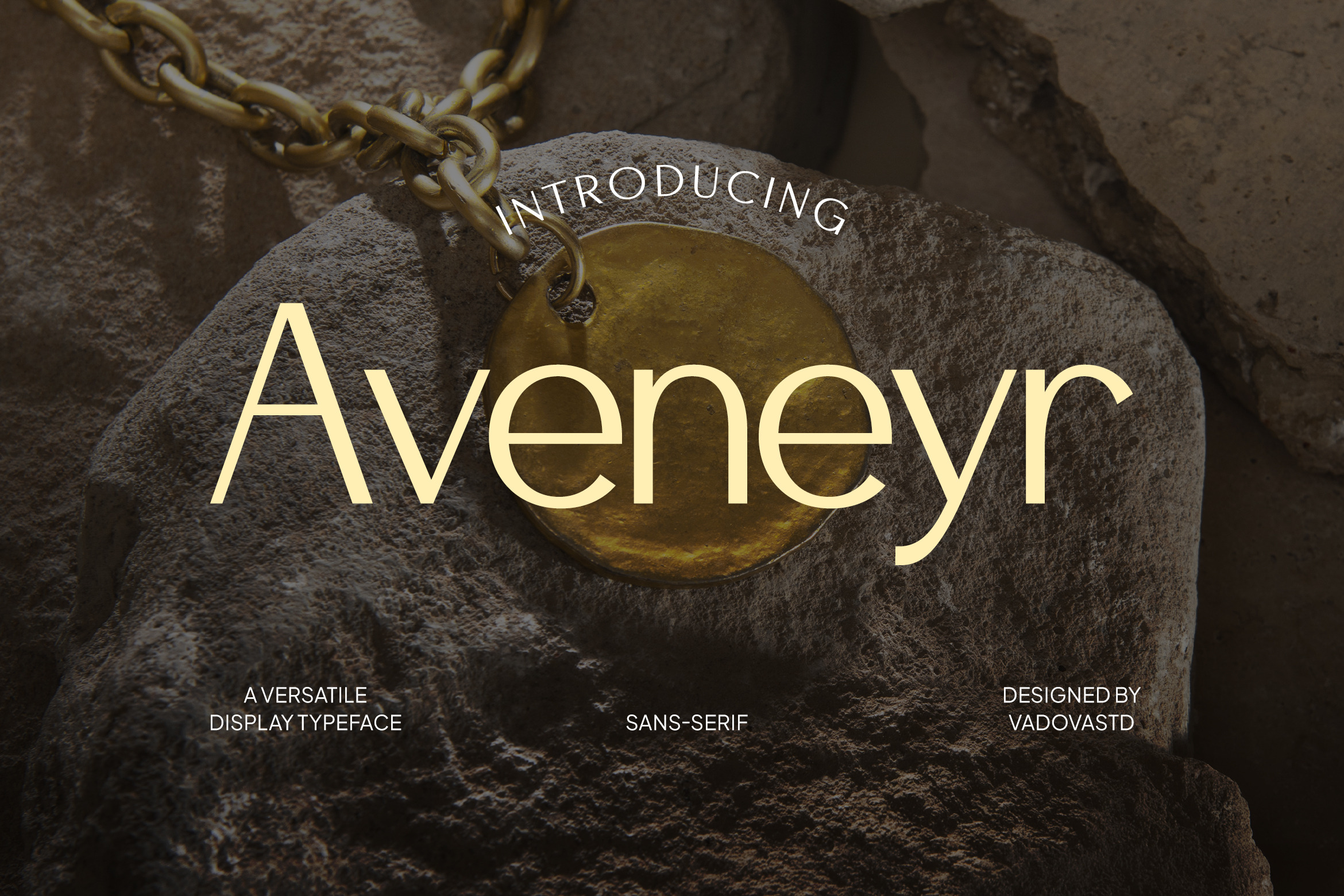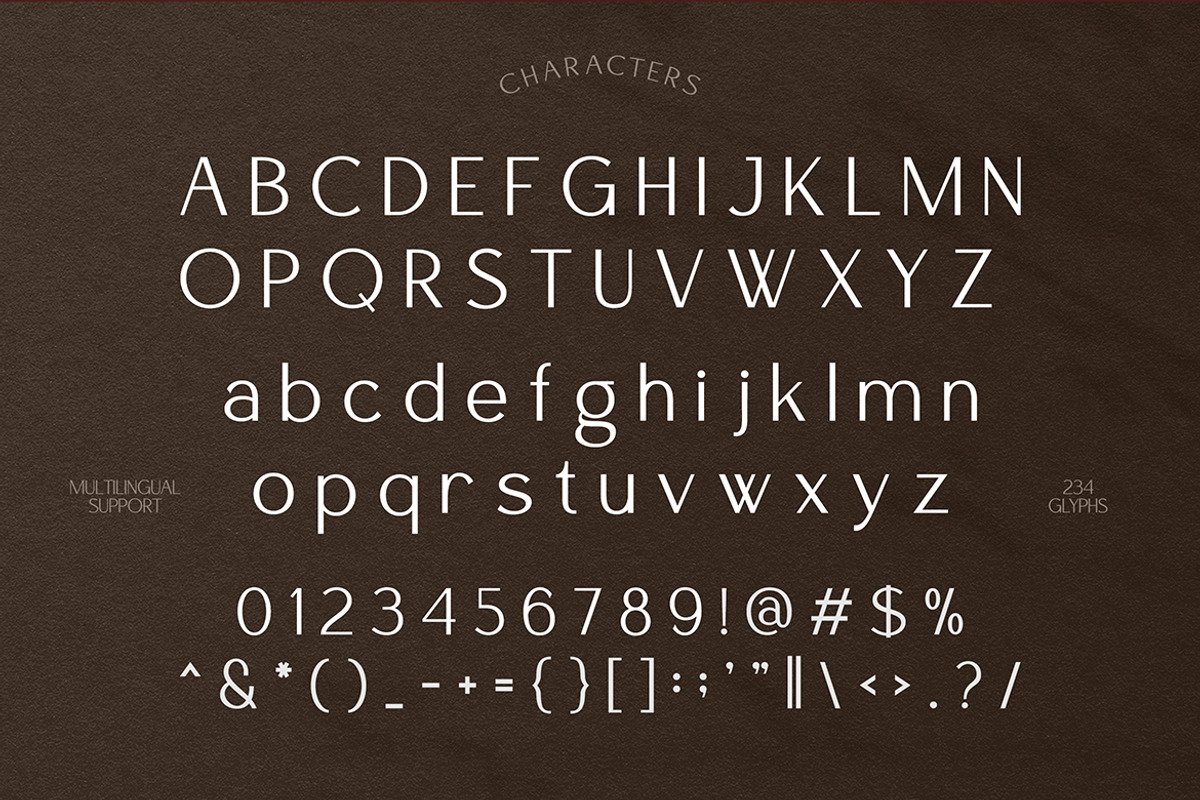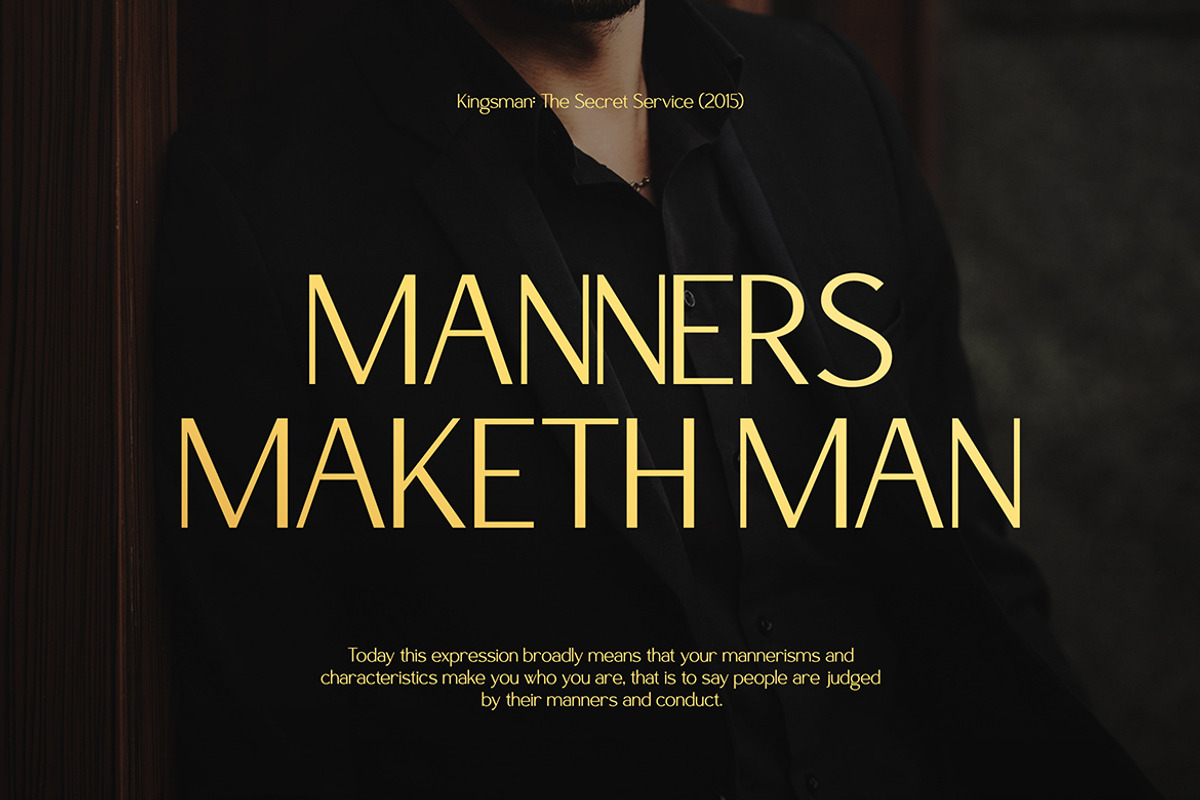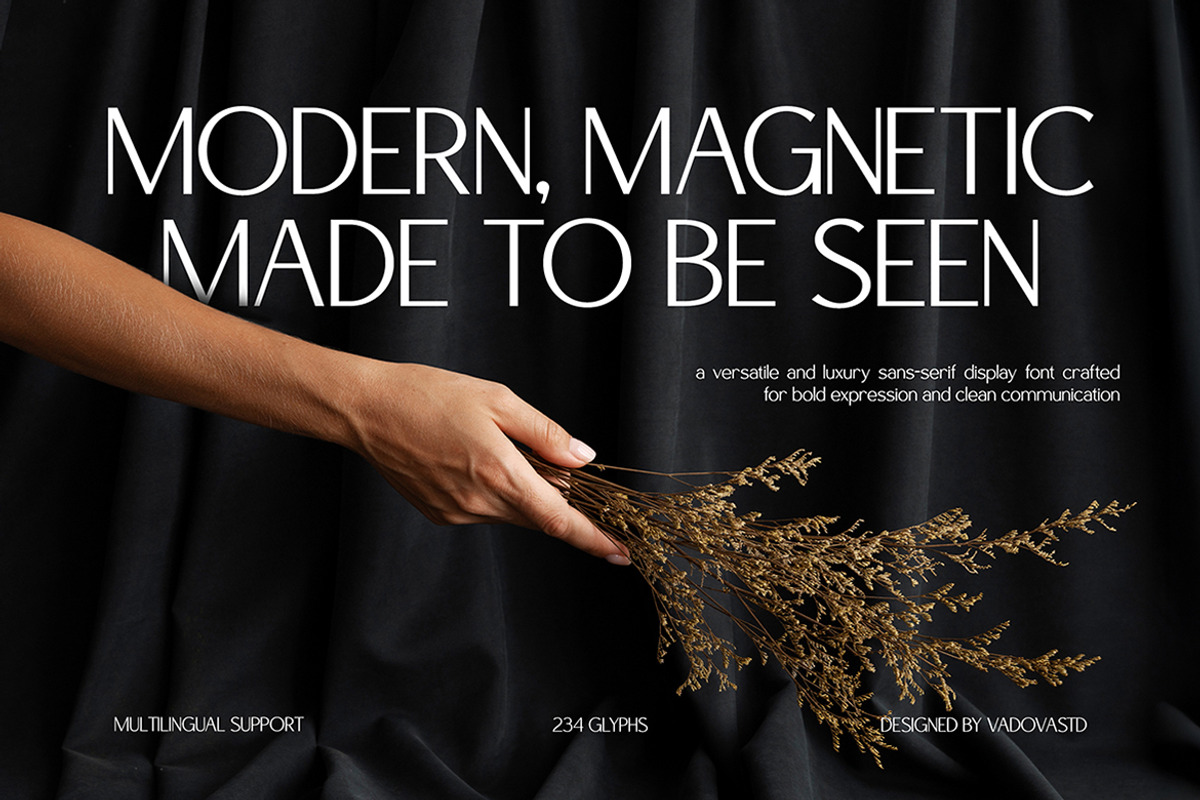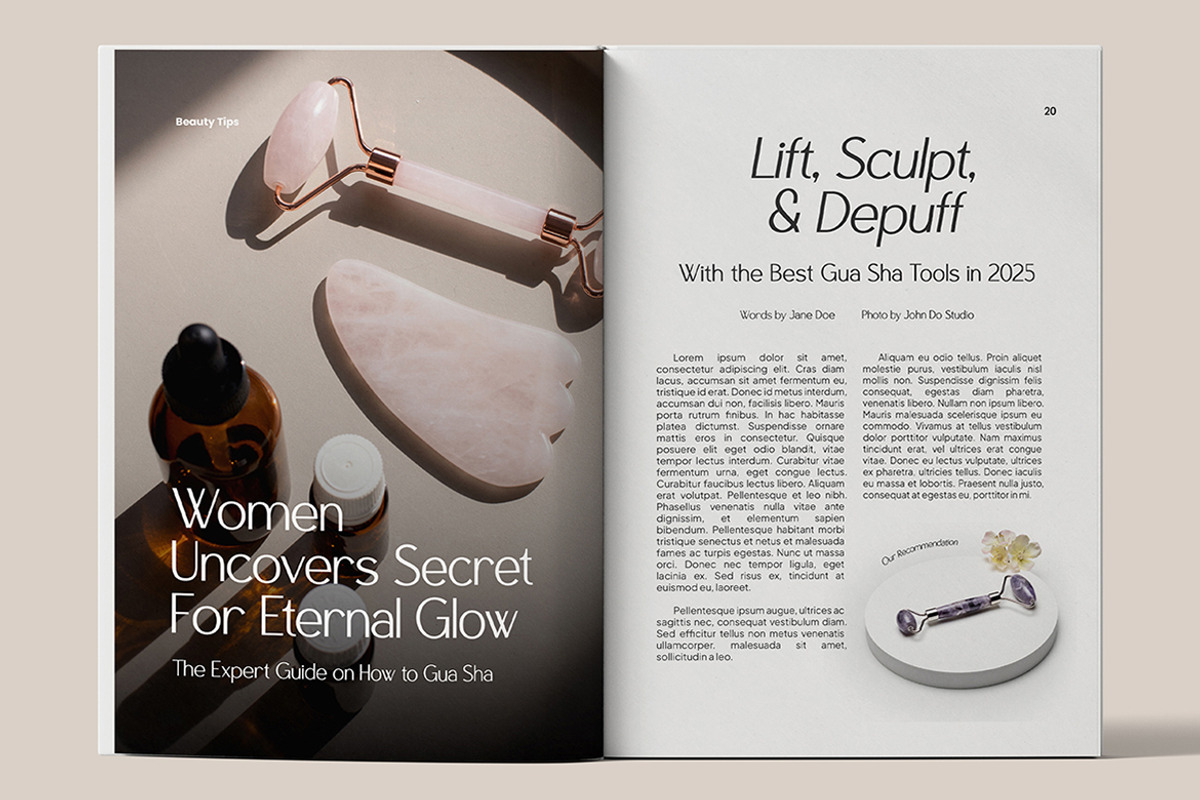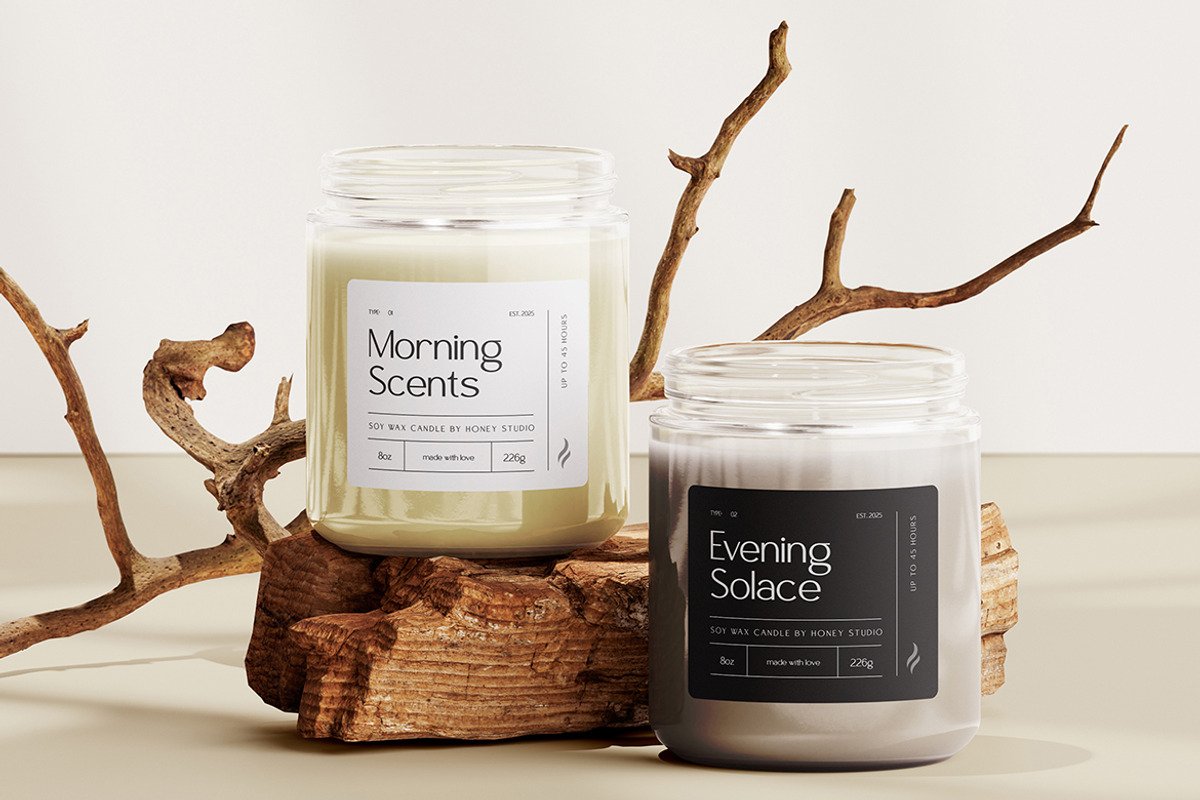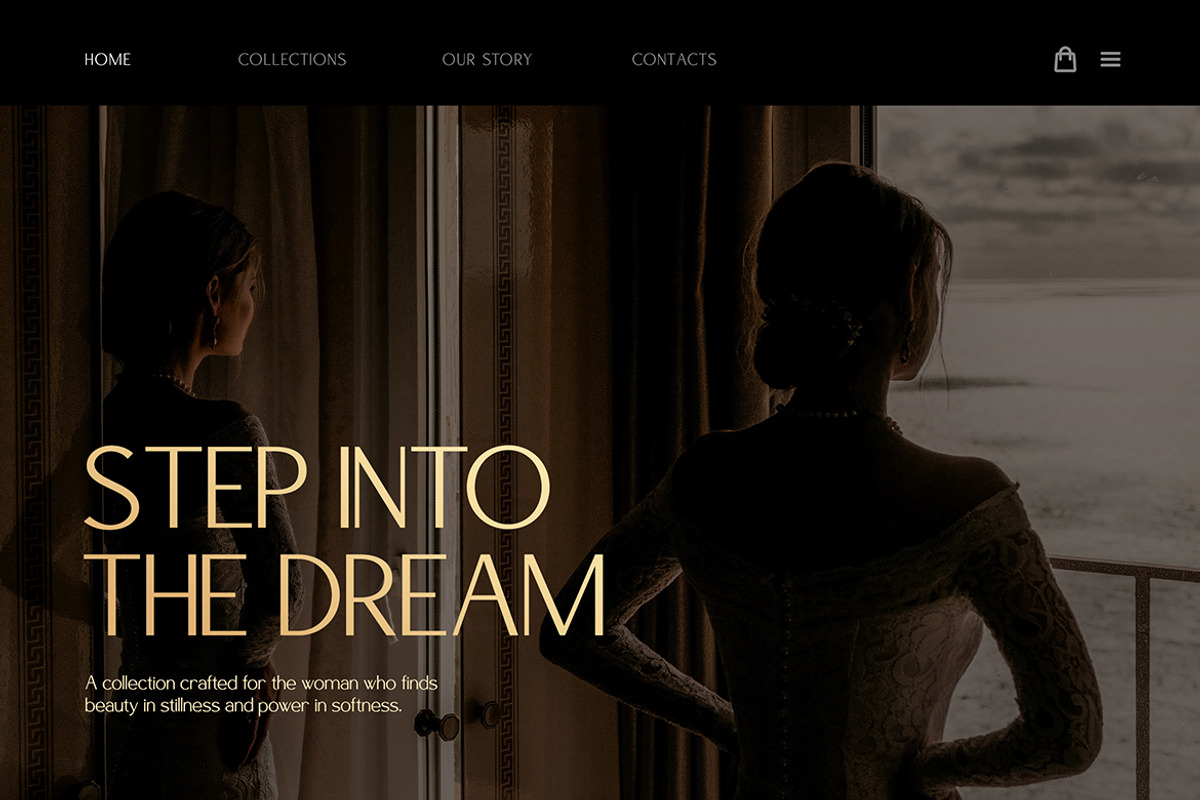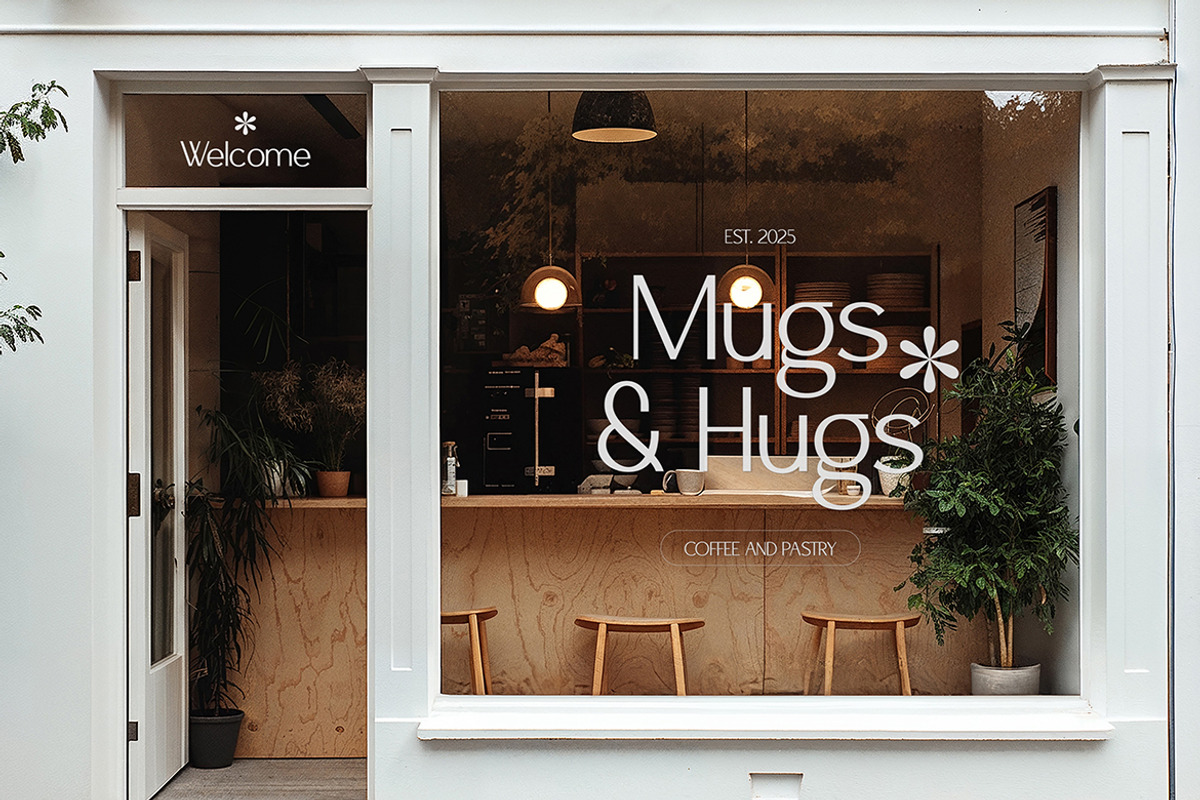
Aveneyr Versatile Typeface Font
Aveneyr is a refined display sans-serif typeface that blends minimalist form with a luxurious tone. Designed with precision and balance, it offers clean lines and modern elegance ideal for high-end branding, editorial layouts, fashion campaigns, and stylish logo work. Featuring 234 glyphs with multilingual support, Aveneyr ensures versatility across global design needs, making it a smart choice for designers who value clarity and sophistication in every word.
Aveneyr is perfectly suited for projects that demand a refined yet modern visual identity. Its clean sans-serif style and elegant structure make it ideal for luxury branding, minimalist packaging, high-end editorial layouts, fashion campaigns, and premium lifestyle products. Whether you're designing a logo, magazine cover, social media content, or product label.
- Elegant sans-serif with minimalist geometric influence
- Balanced proportions for a refined, modern feel
- Subtle curve accents enhancing visual softness
- High legibility with open letterforms and clean lines
- Versatile weight and spacing for display or branding use
- Premium brand identity systems with a modern minimalist look
- Fashion campaigns, beauty product branding, and luxury packaging
- Editorial magazine layouts and high-end book designs
- Lifestyle blogs, portfolio showcases, and creative direction work
- Social media kits, ad creatives, and promotional visuals with a refined edge
Supports numerals, punctuation, and extensive symbol set
Let Aveneyr express your message through clean, elegant form